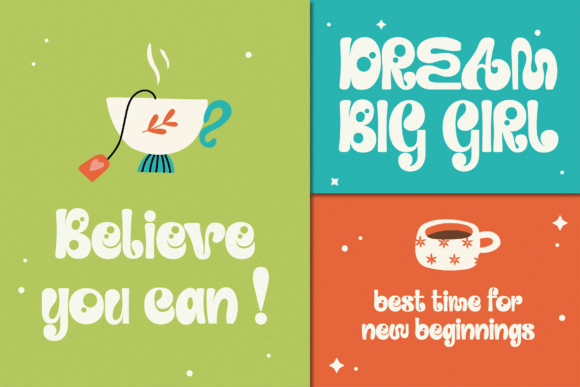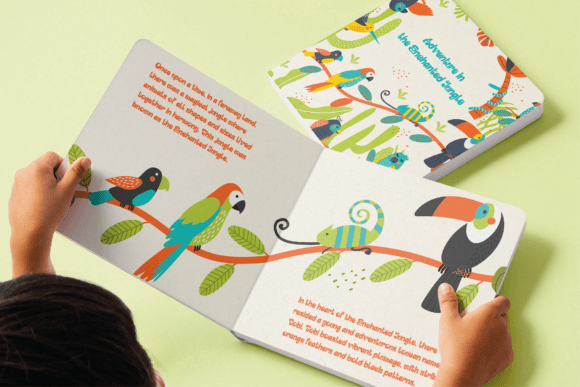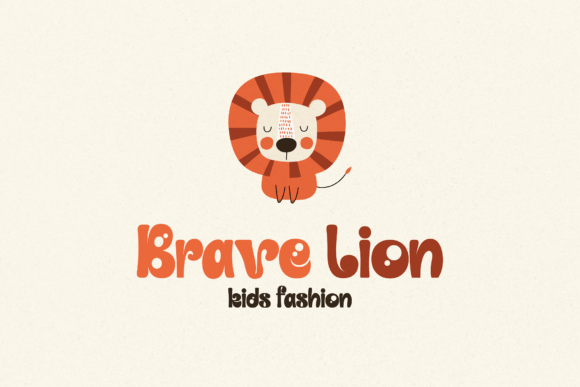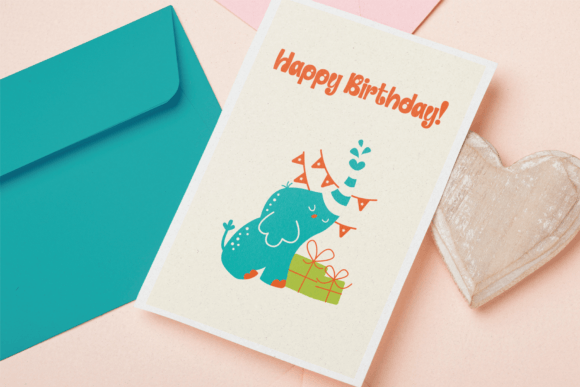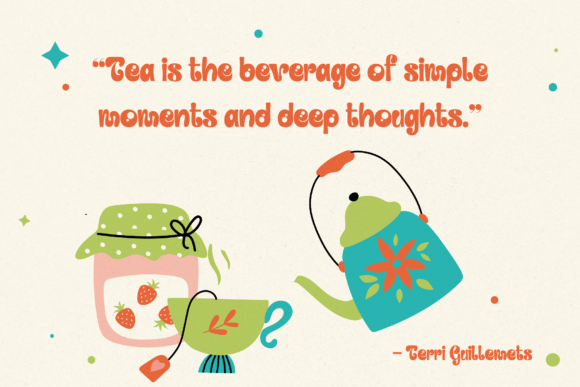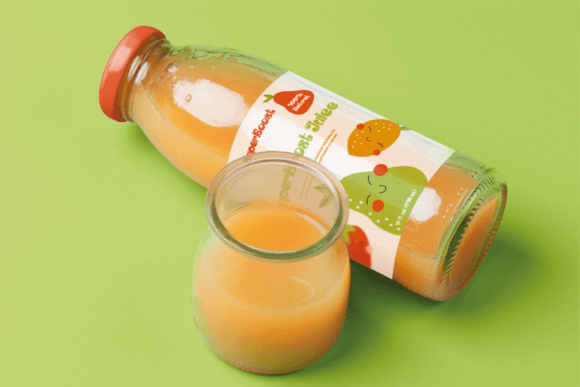
Introduction to Plump Twirl Font
Step into a world of whimsy with Plump Twirl, the ultimate typeface for young imaginations.
Crafted with joy and jubilation in every curve, this adorable decorative font is the perfect sprinkle of magic for projects dedicated to kids, children, and toddlers With letters that seem to dance and twirl like balloons on a string, Plump Twirl embodies the playful spirit of childhood.
Key Features of Plump Twirl Font
Why Choose Plump Twirl Font?
Plump Twirl Font offers exceptional quality and versatility, making it a valuable addition to your design toolkit. Whether you’re creating for personal projects or commercial use, Plump Twirl Font delivers professional results.